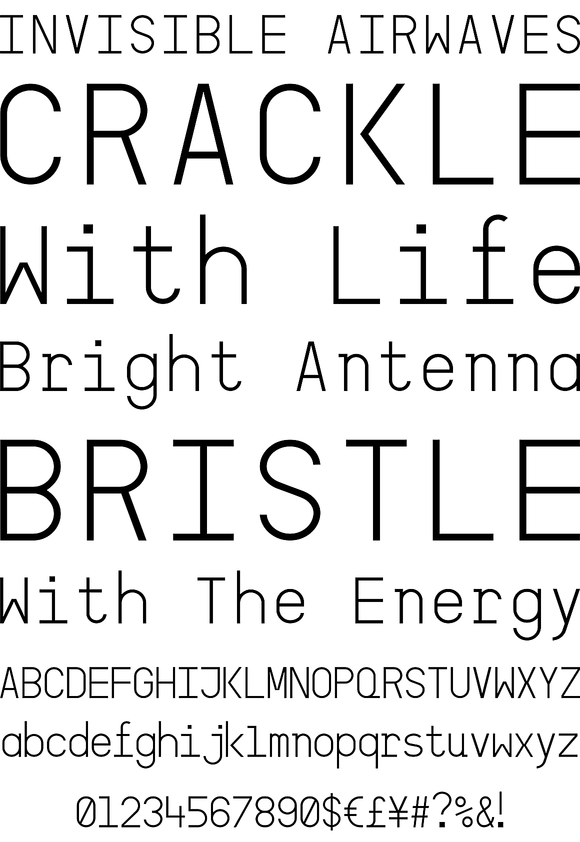
CDLX Mono
CDLX Mono is a simple and clear geometric monospaced typeface. It was originally buildt for tables, code, formulas and other data driven typographic needs but also works well for professionally set copytext. CDLX Mono comes in three weights (light, regular, bold) and with italics as an Unicode encoded opentype font (otf). It contains the Latin-Standards and specific characters like arrows, geometric shapes, textures and ligatures.